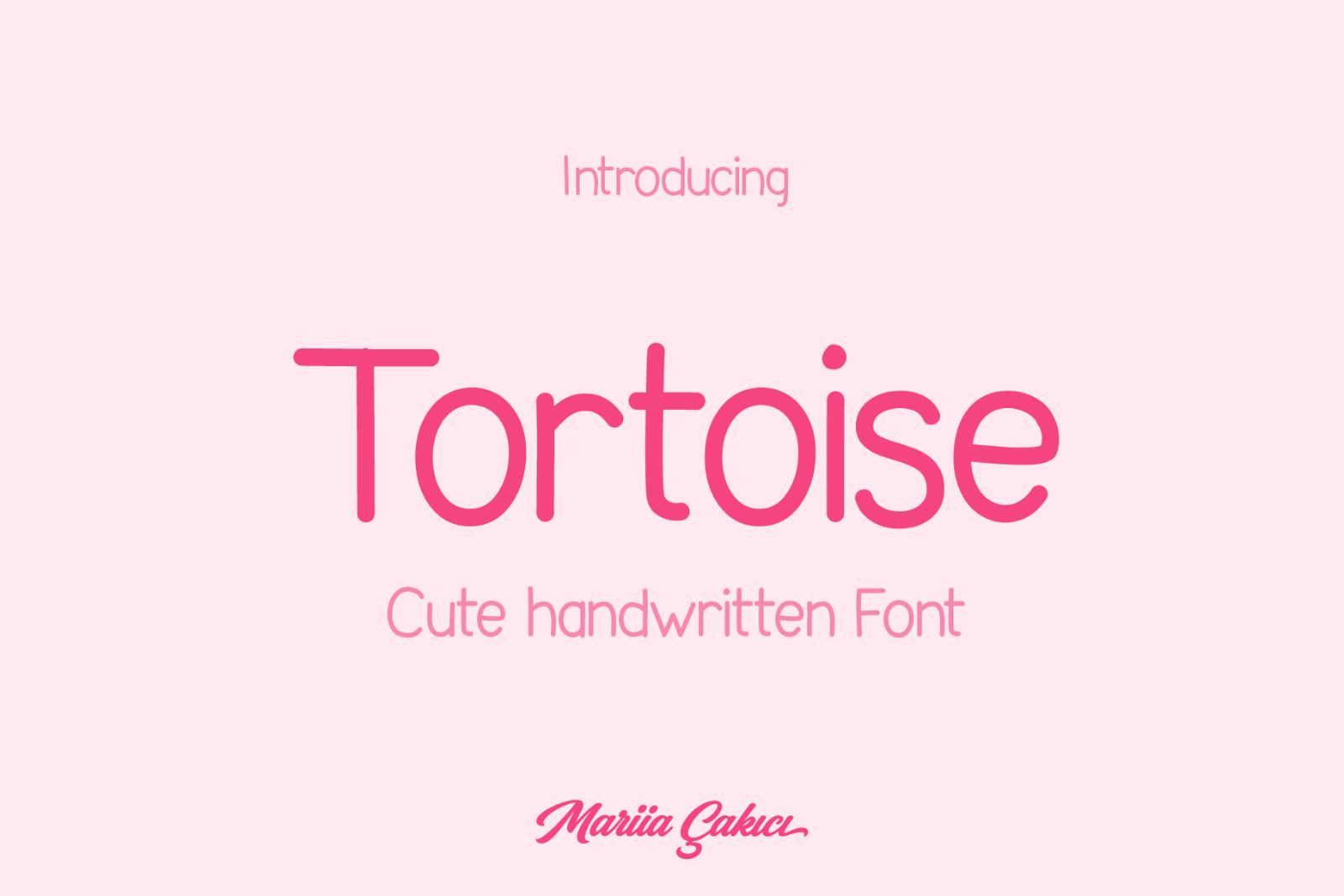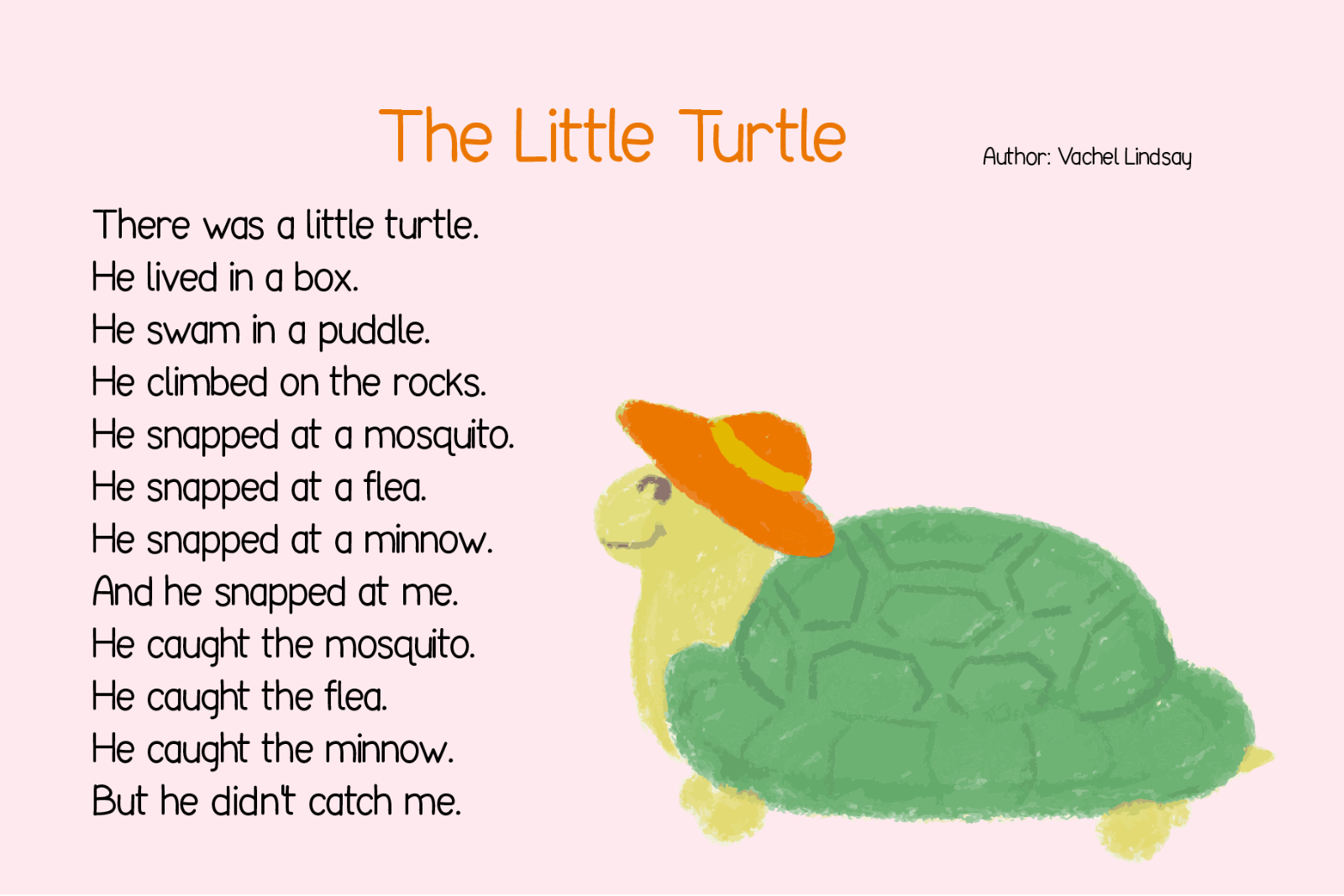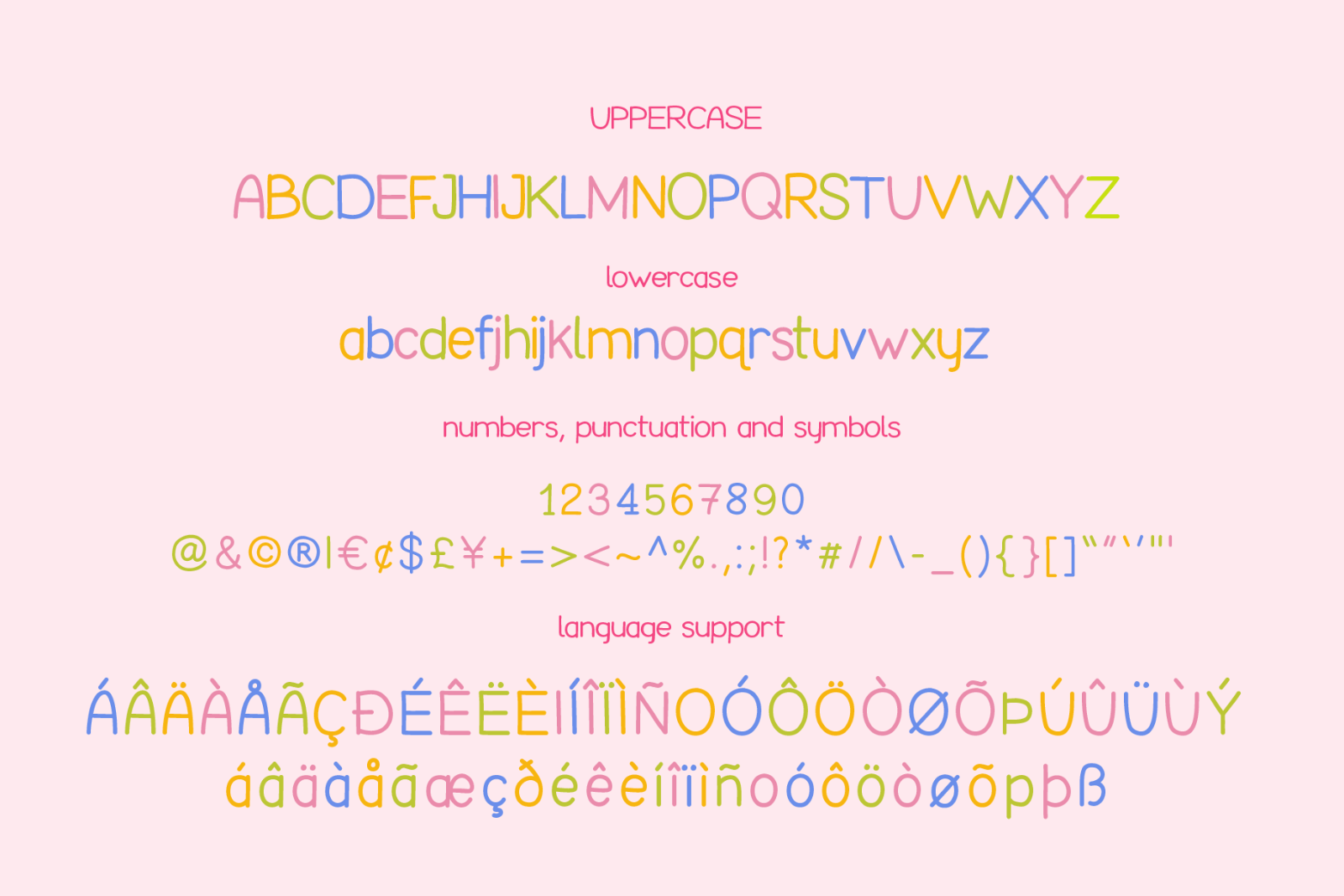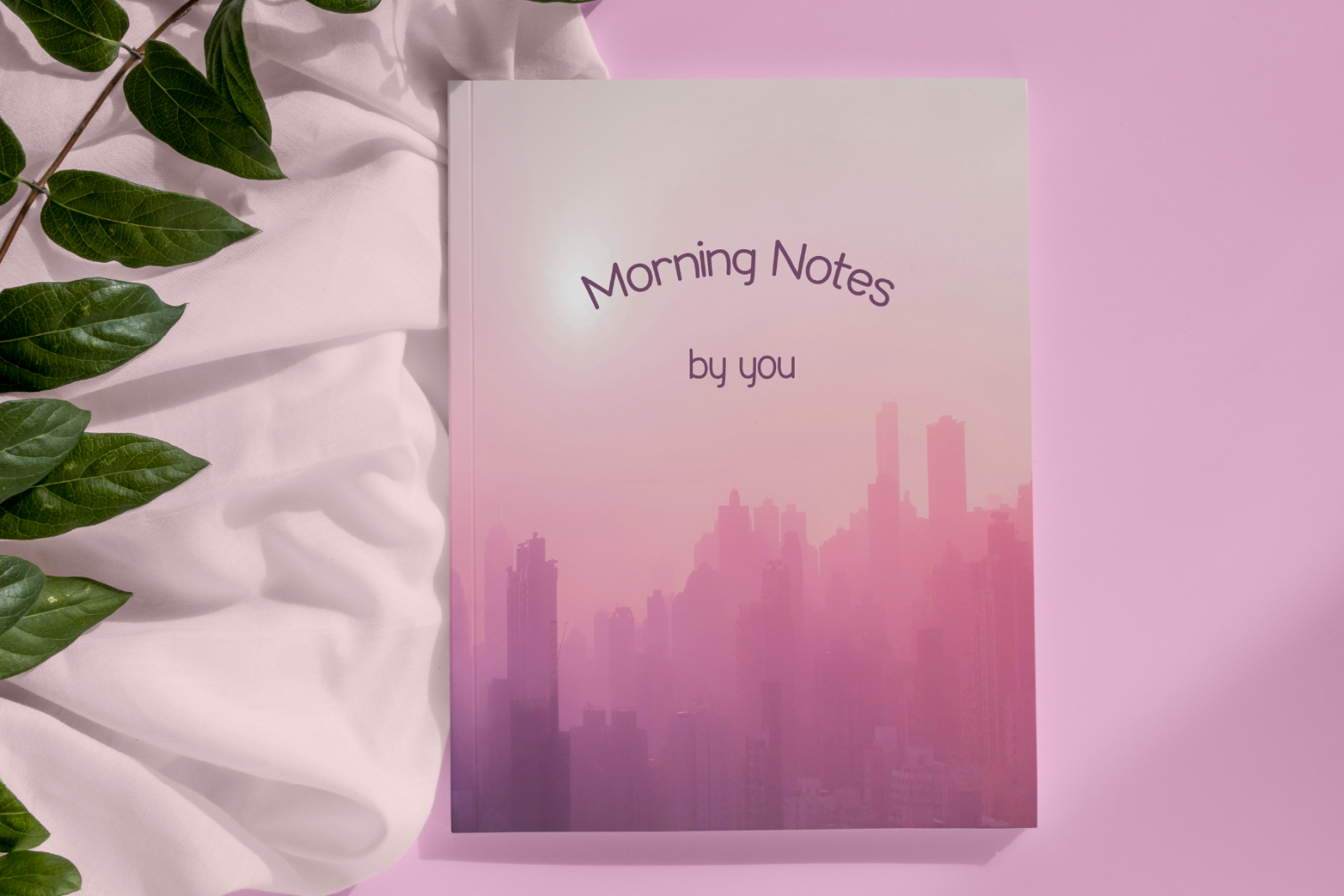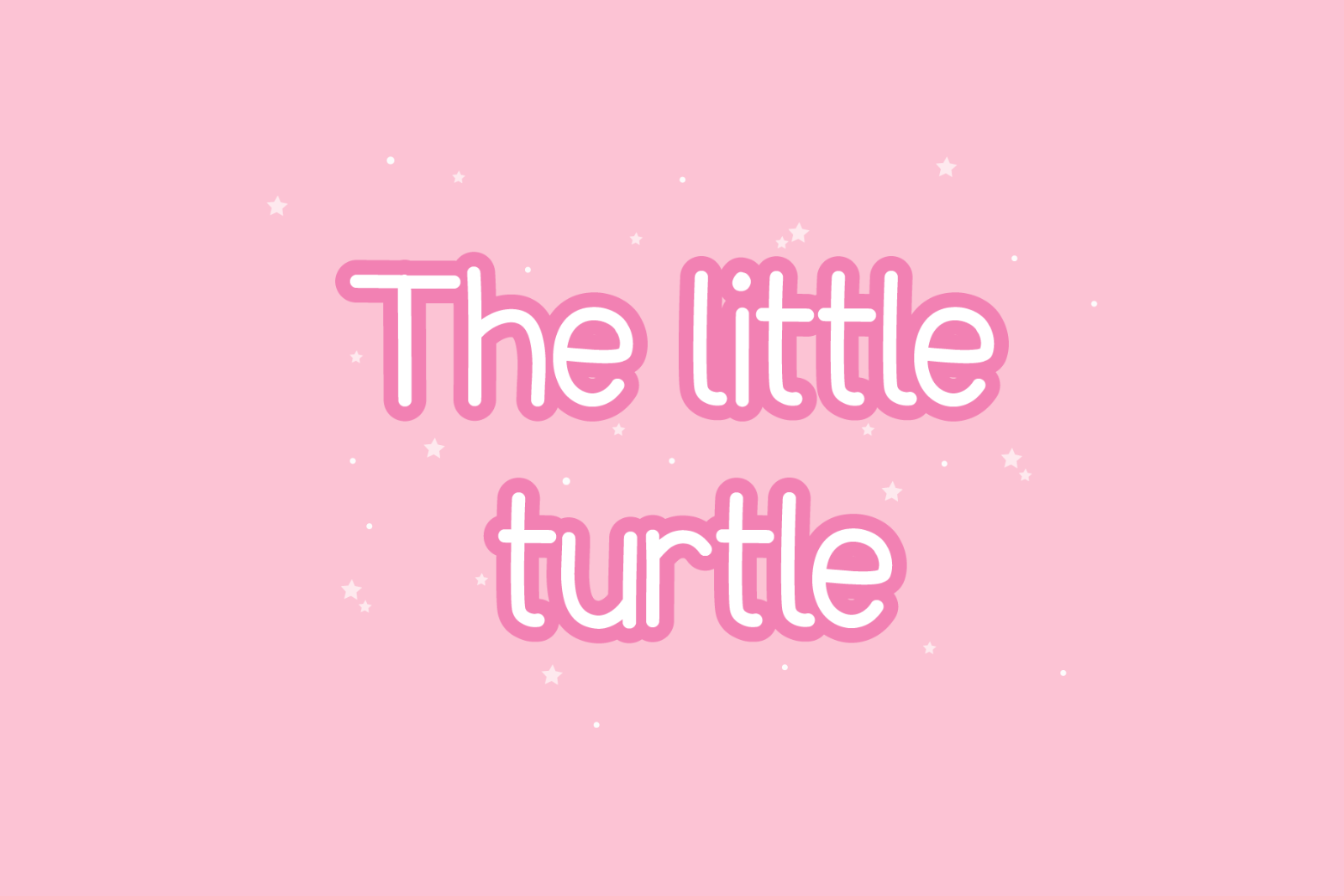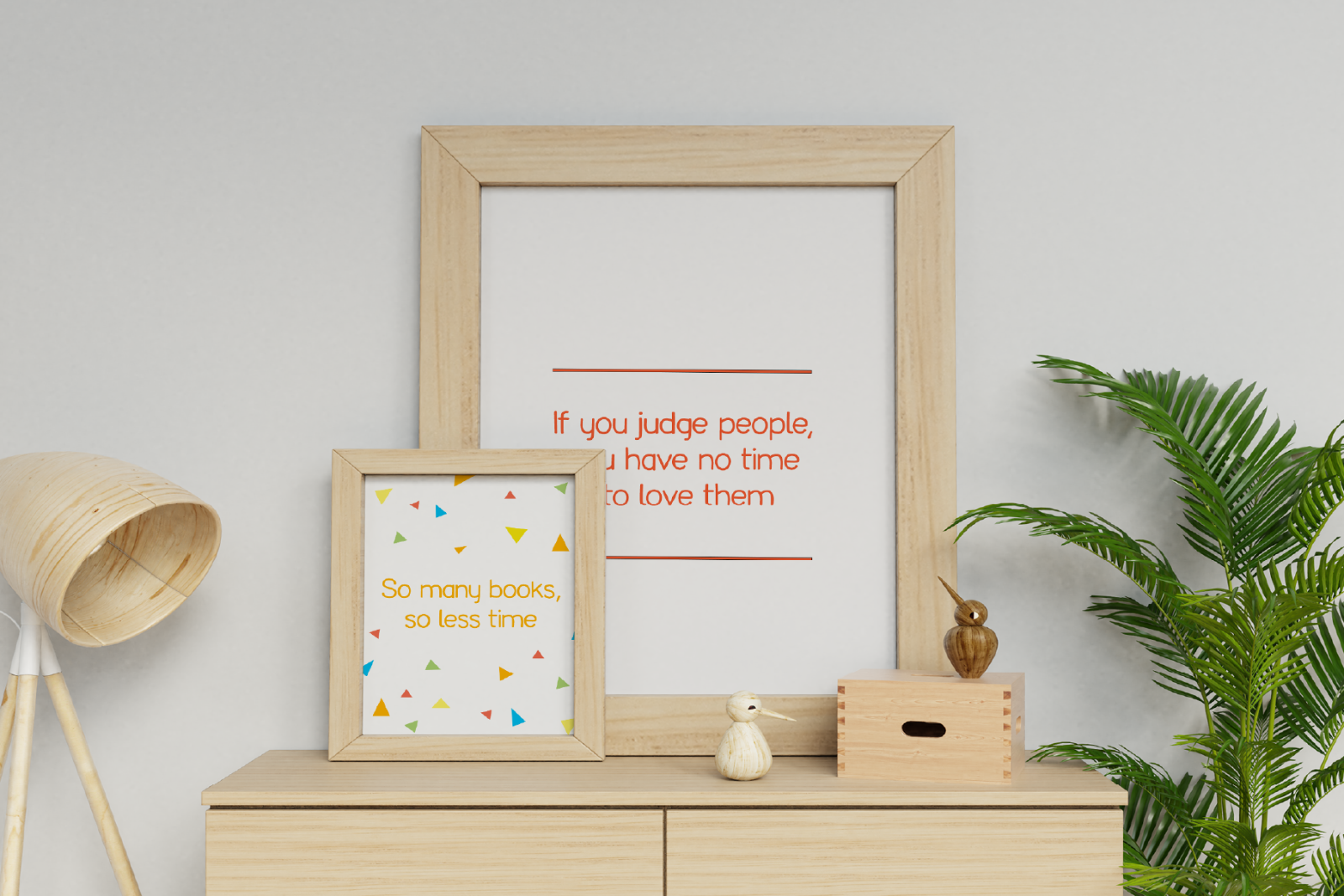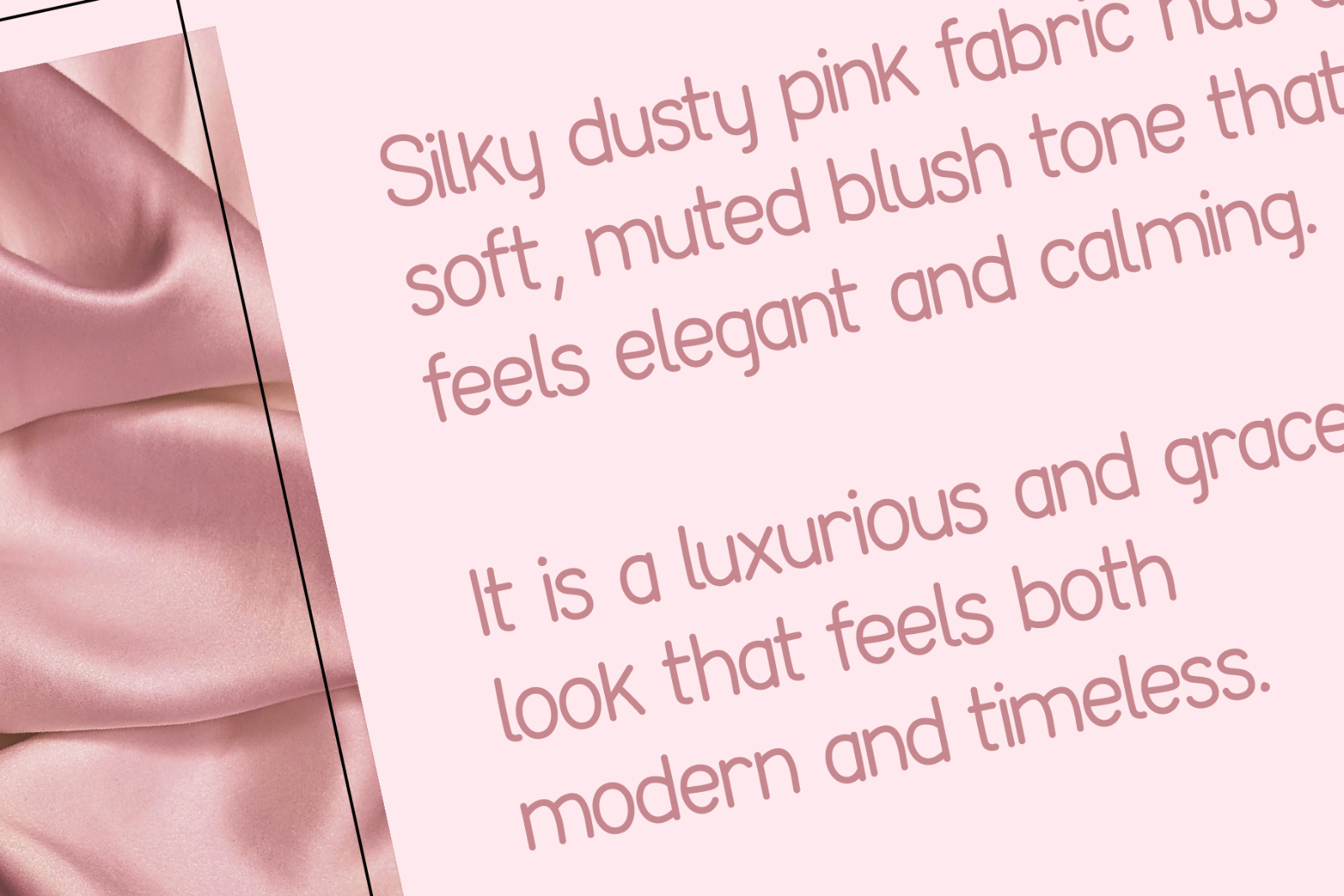
Tortoise Handwritten Font
Tortoise is a cute handwritten font. You can use it for a variety of design projects like posters, books, invitations, games, covers, social media posts, quote photos, branding, editorials, and much more.